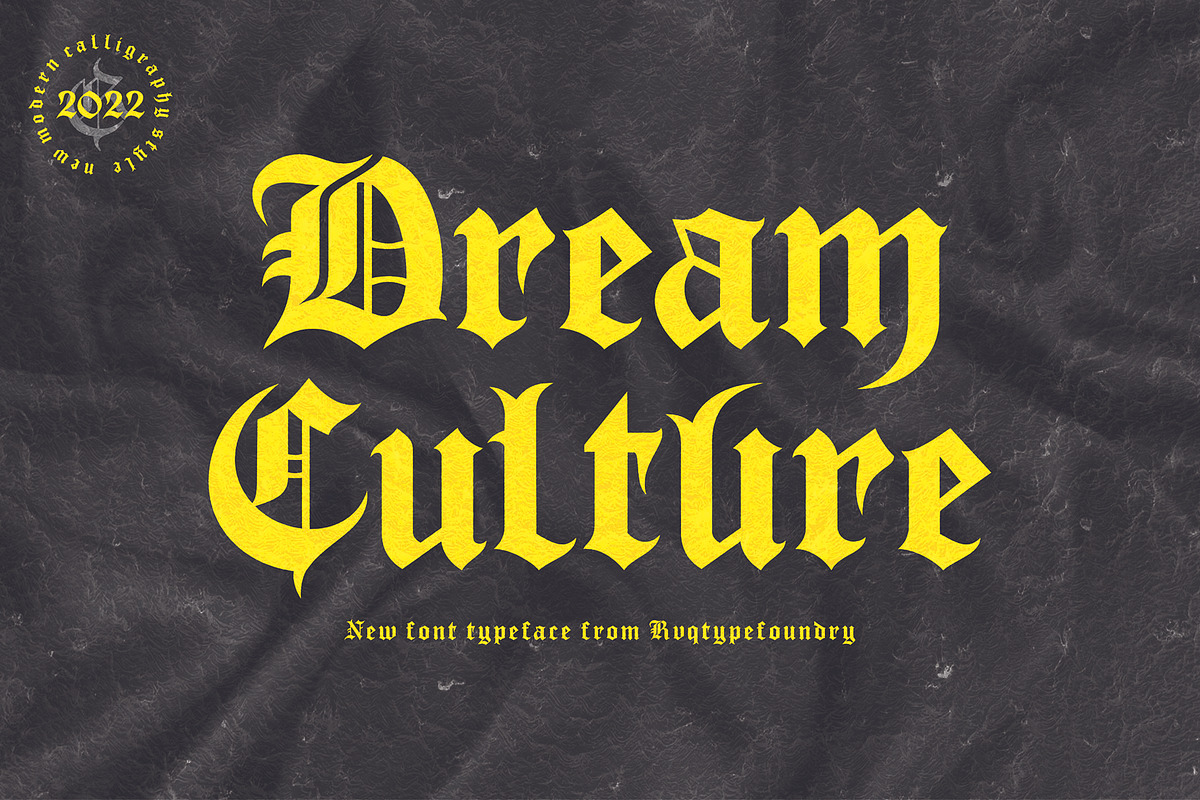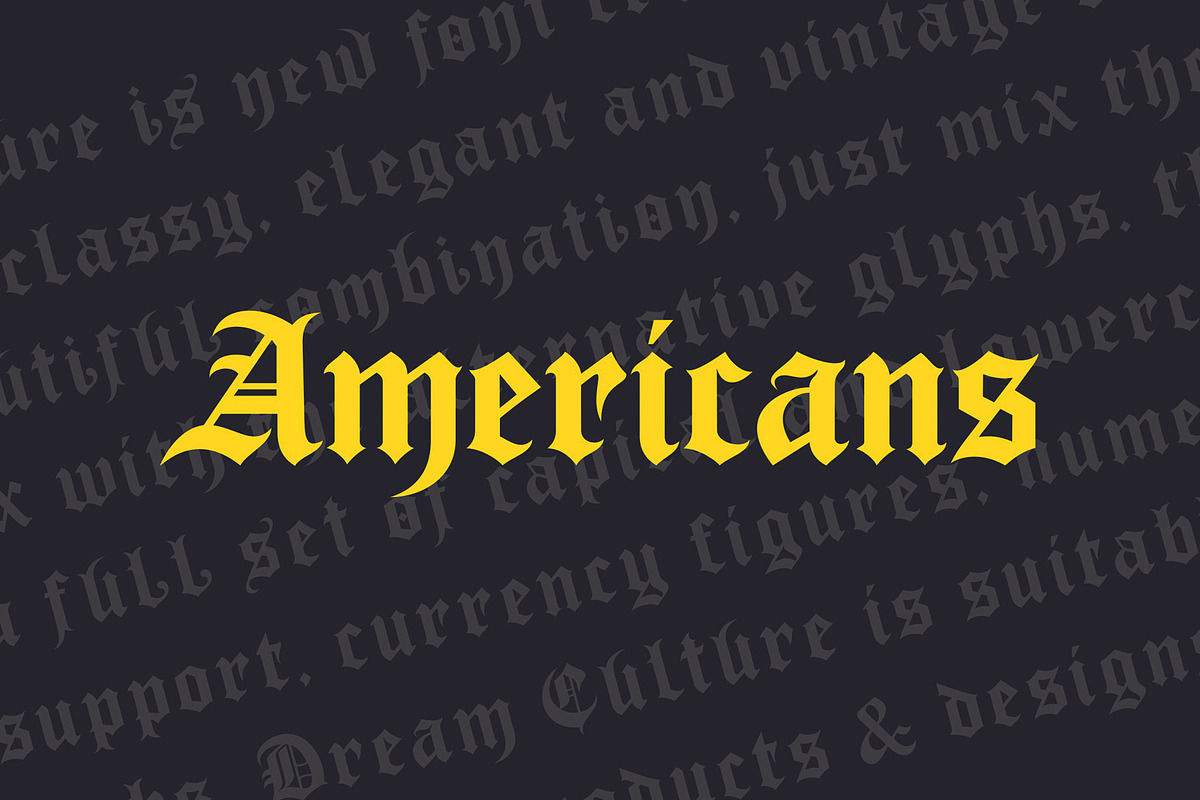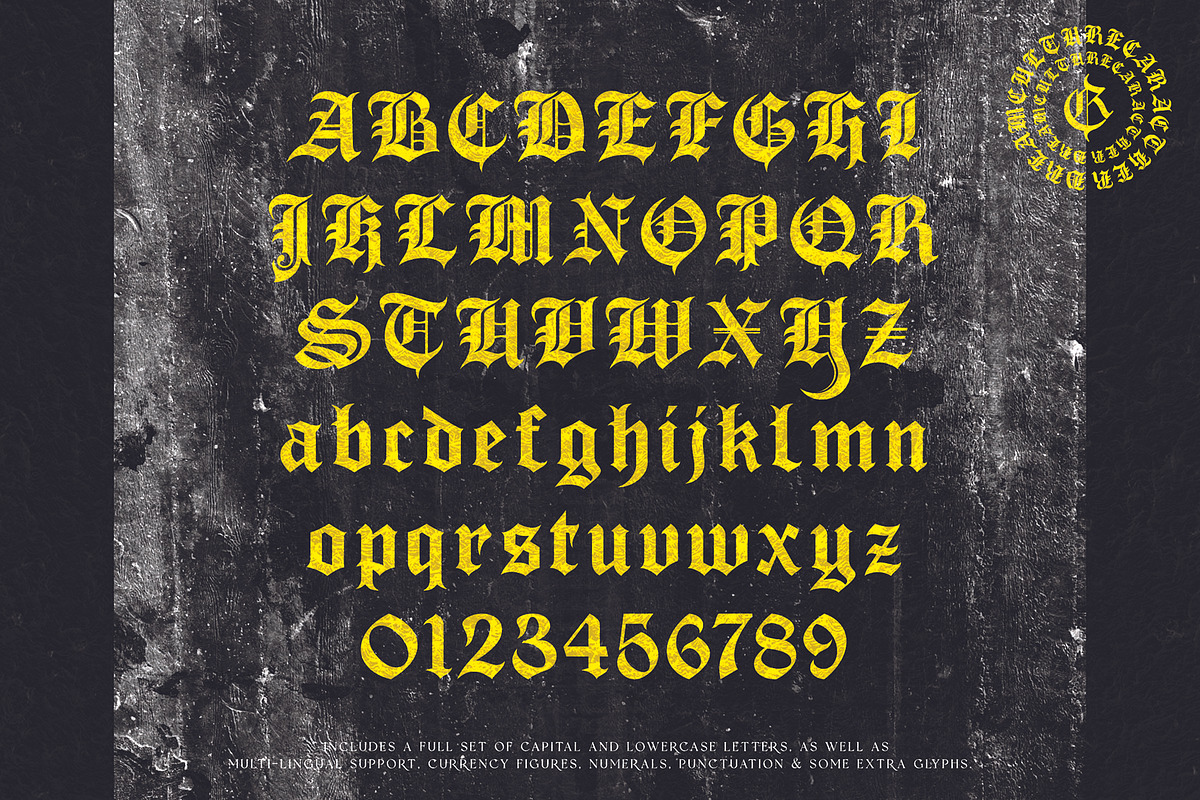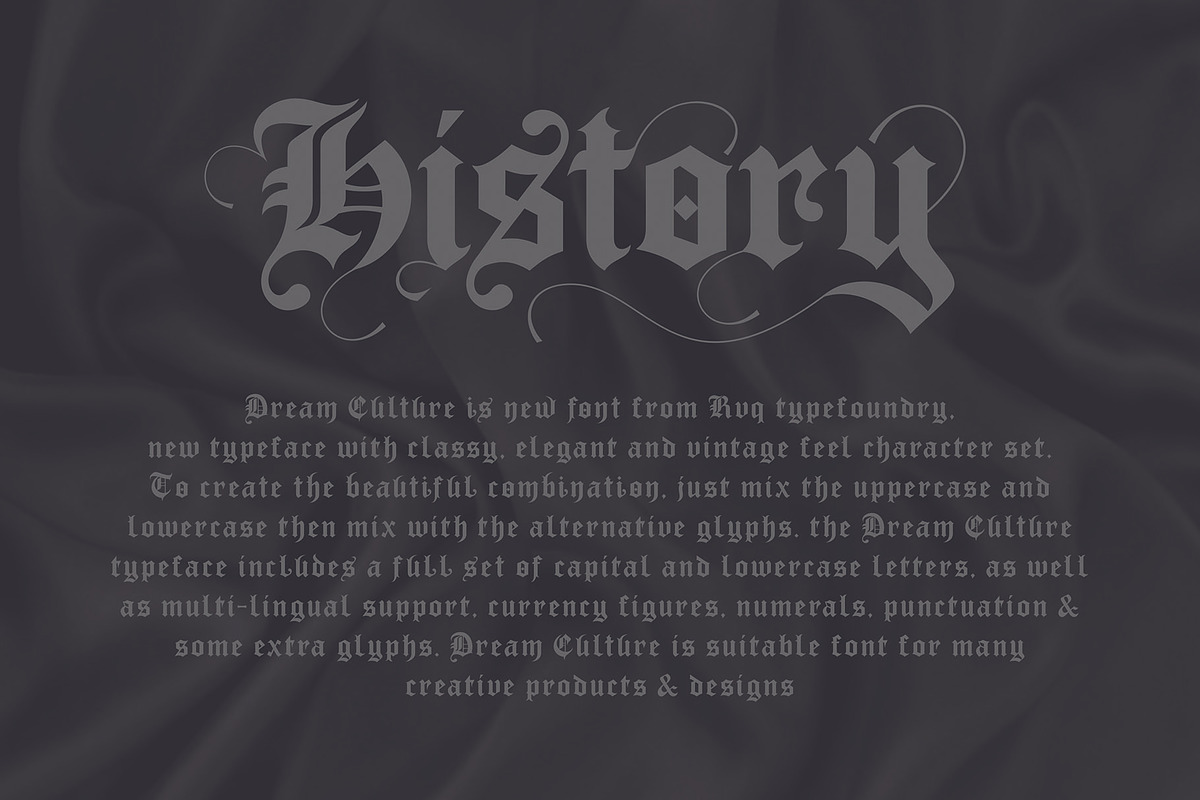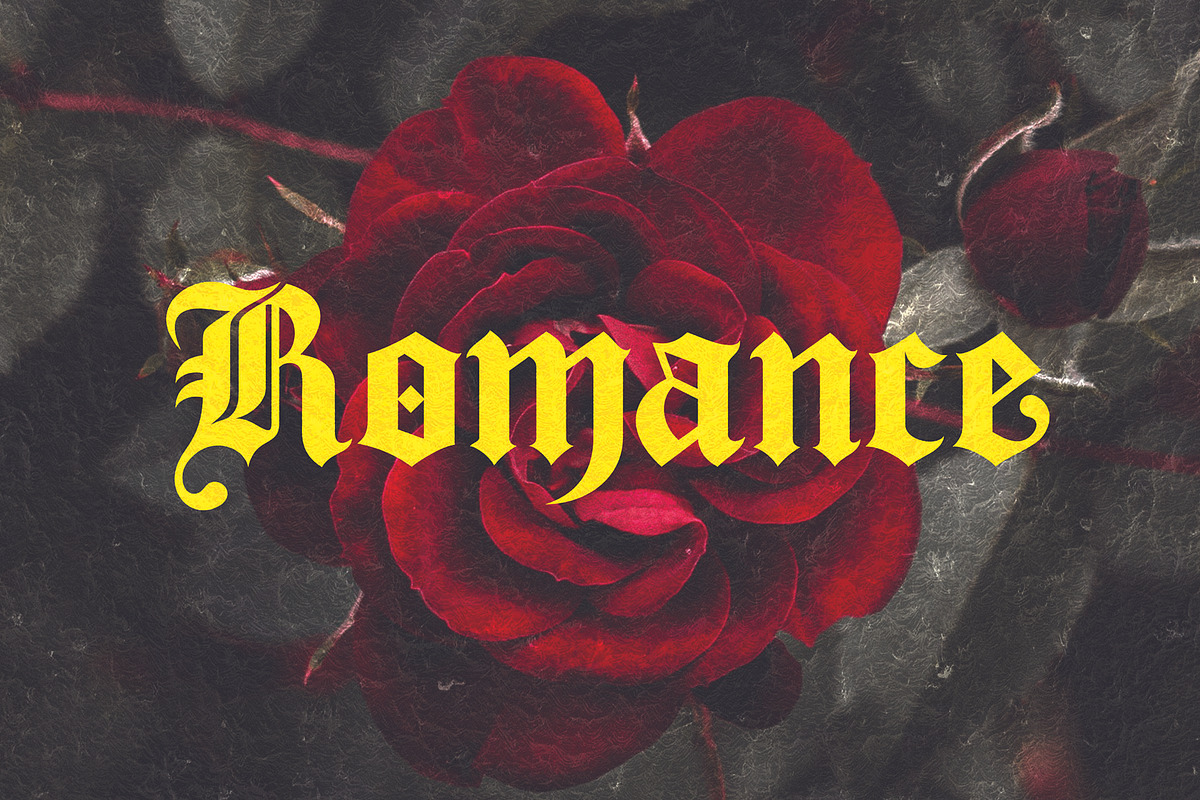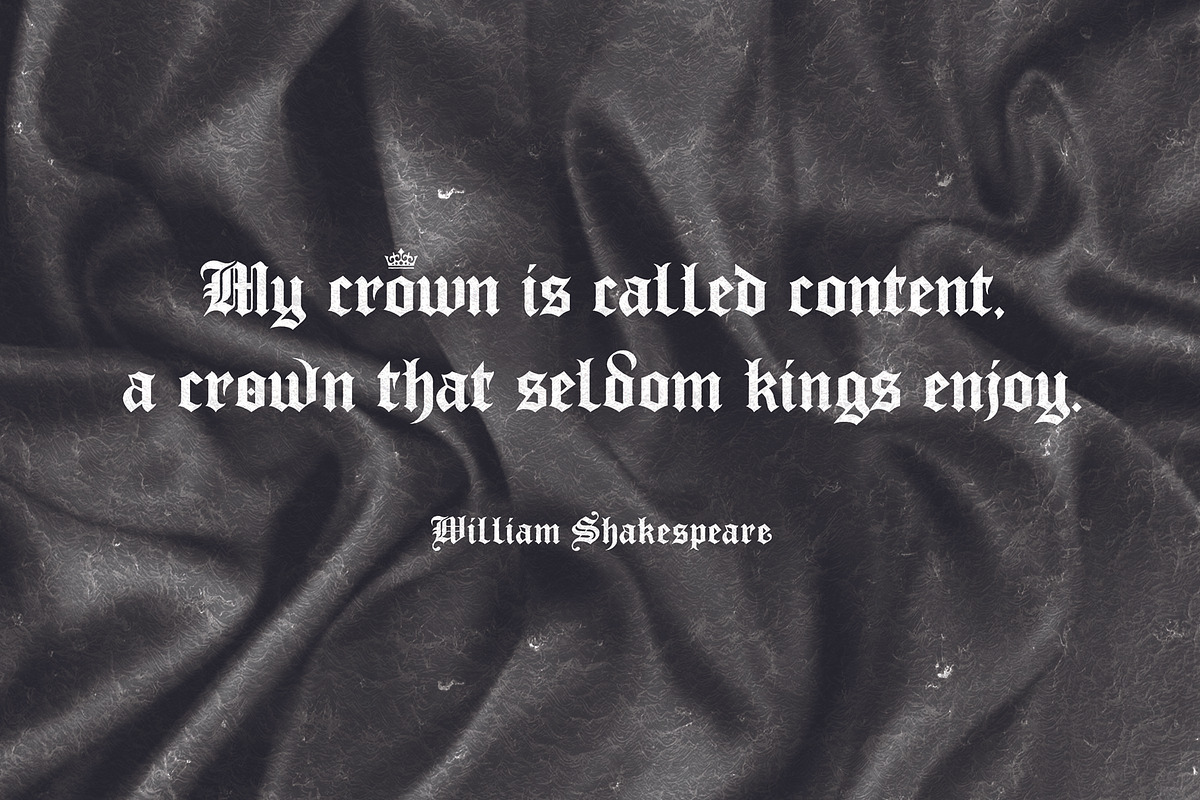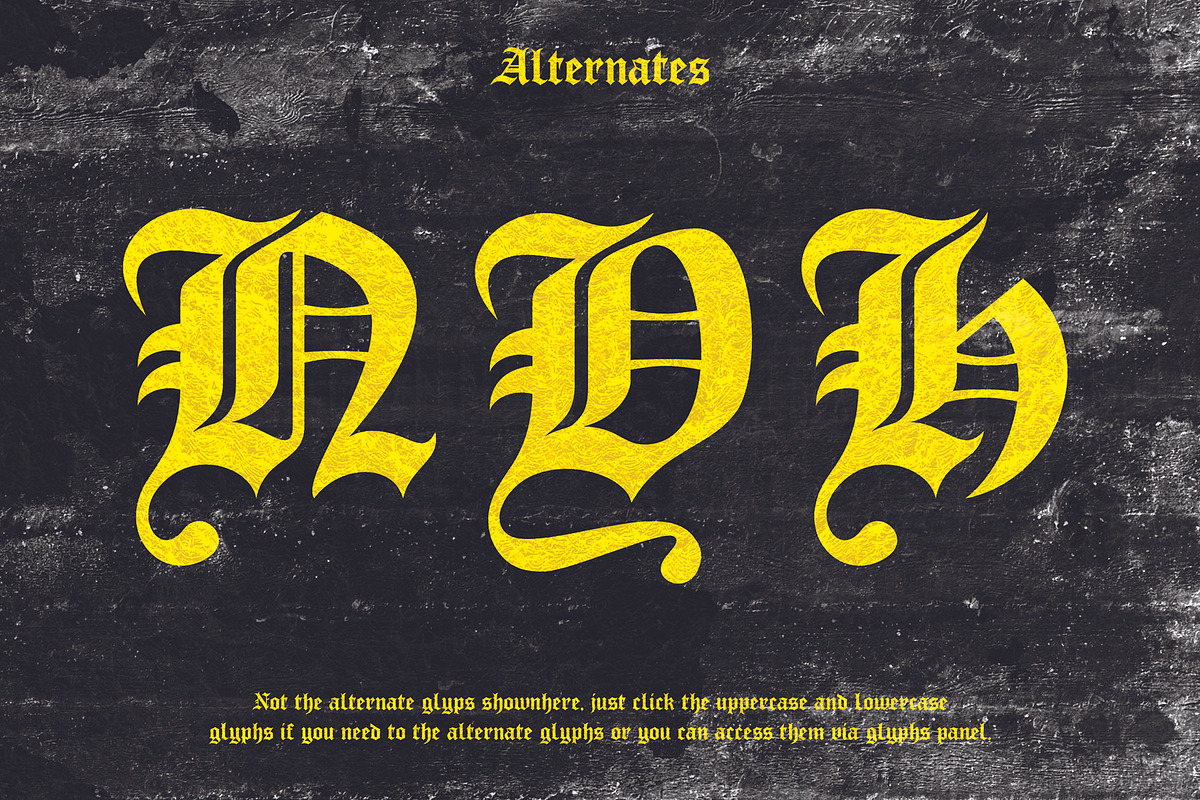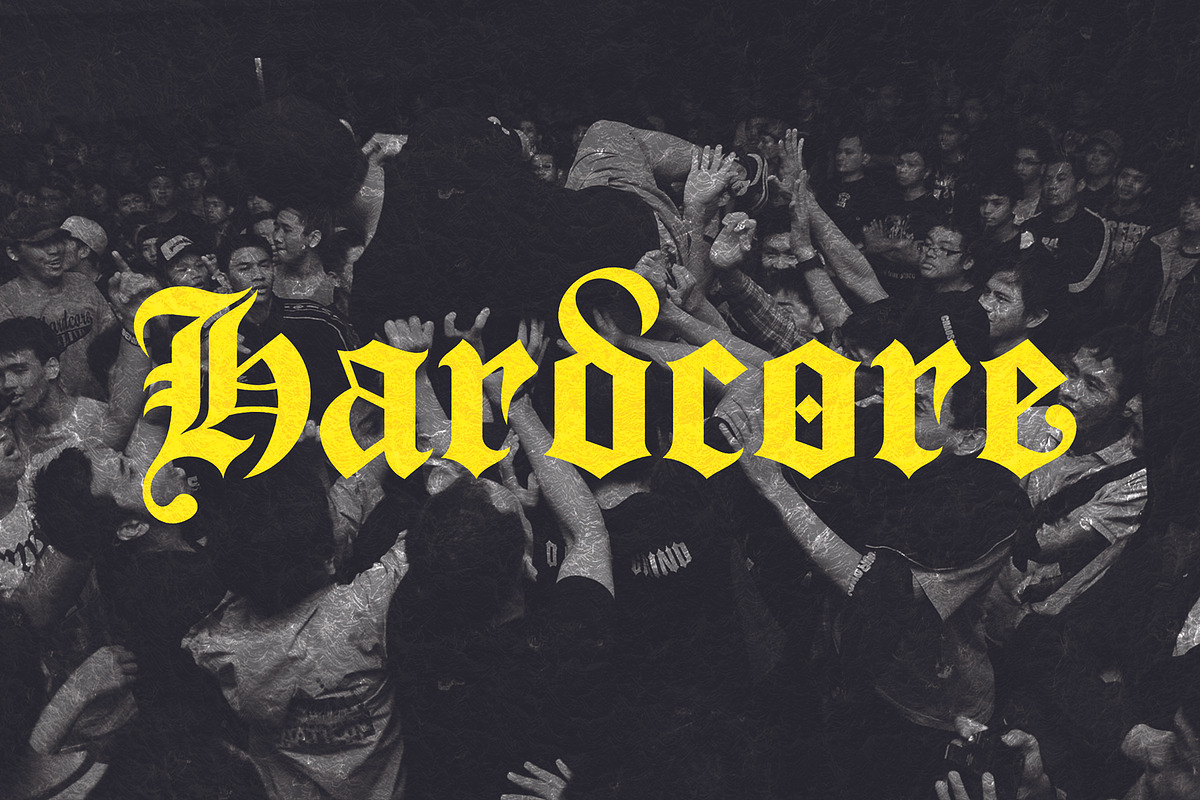
The Dream Culture is new font from Rvq Typefoundry, new typeface with classy, elegant and vintage feel character set. To create the beautiful combination, just mix the uppercase and lowercase then mix with the alternative glyphs. The Dream Culture typeface includes a full set of capital and lowercase letters, as well as multi-lingual support, currency figures, numerals, punctuation & some extra glyphs.
Character Set A-Z
Numerals & Punctuations (OpenType Standard)
Accents (Multilingual characters)
The Dream Culture is suitable font for many creative products & designs.